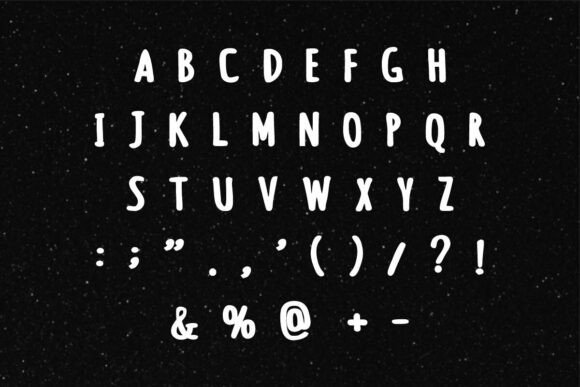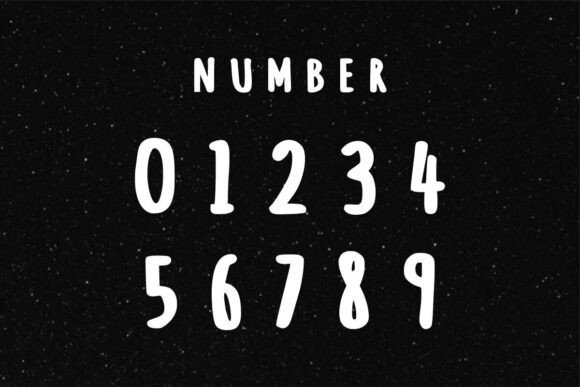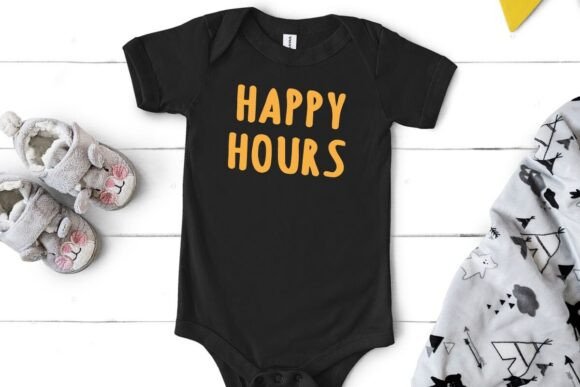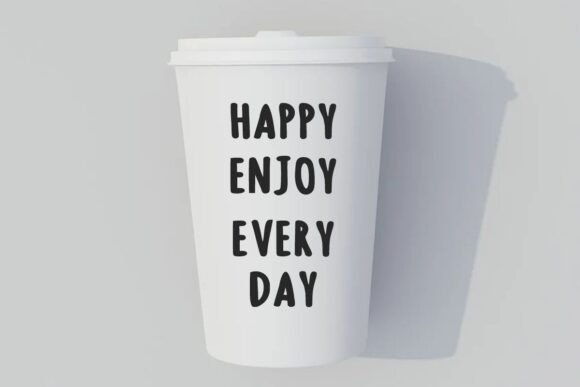
Forever Young Font: The Ultimate Choice for a Relaxed and Friendly Design
Are you looking for a font that can add a touch of informality and casualness to your designs? Look no further than the Forever Young Font. This cute and simple display font is perfect for designers and crafters who want to create relaxed and friendly designs that appeal to a wide audience.
What Makes Forever Young Font So Special?
Forever Young Font is a unique and versatile font that can be used for a variety of design projects. Its informal style and casual vibe make it an excellent choice for designs that require a laid-back touch. Whether you’re working on product packaging, invitations, quotes, t-shirts, labels, posters, or logos, this font is sure to become your go-to choice.
Key Features of Forever Young Font
- Cute and Simple Design: Forever Young Font features a cute and simple design that is easy to read and understand. Its clean lines and rounded edges make it a joy to use for a variety of design projects.
- Informal Style: The font’s informal style and casual vibe make it perfect for designs that require a relaxed touch. It’s ideal for creating designs that are friendly, approachable, and laid-back.
- Versatility: Forever Young Font is a versatile font that can be used for a wide range of design projects. Whether you’re working on a logo, poster, or packaging design, this font is sure to deliver.
Use Cases for Forever Young Font
Forever Young Font is a versatile font that can be used for a wide range of design projects. Here are some use cases where this font can shine:
- Product Packaging: Use Forever Young Font to create eye-catching product packaging that stands out on store shelves. Its informal style and casual vibe make it perfect for packaging designs that require a relaxed touch.
- Invitations: Create beautiful and unique invitations for parties, weddings, and other events using Forever Young Font. Its cute and simple design makes it perfect for creating invitations that are friendly and approachable.
- Quotes and Posters: Use Forever Young Font to create inspiring quotes and posters that are easy to read and understand. Its clean lines and rounded edges make it perfect for creating designs that are visually appealing.
- T-Shirts and Apparel: Create custom t-shirts and apparel using Forever Young Font. Its informal style and casual vibe make it perfect for creating designs that are relaxed and friendly.
- Logos and Branding: Use Forever Young Font to create unique and memorable logos and branding materials. Its versatility and ease of use make it perfect for creating designs that are professional and visually appealing.
Tips for Using Forever Young Font
Here are some tips for using Forever Young Font in your designs:
- Pair it with Other Fonts: Forever Young Font can be paired with other fonts to create a unique and visually appealing design. Try pairing it with a serif font for a contrasting look.
- Experiment with Colors: Forever Young Font looks great in a variety of colors. Experiment with different colors to find the one that works best for your design.
- Use it for Headings: Forever Young Font is perfect for use in headings and titles. Its informal style and casual vibe make it perfect for creating designs that are attention-grabbing and visually appealing.
Forever Young Font is a versatile and easy-to-use font that is perfect for designers and crafters who want to create relaxed and friendly designs. Its informal style and casual vibe make it an excellent choice for a wide range of design projects, from product packaging to logos and branding materials. With its cute and simple design, Forever Young Font is sure to become your go-to choice for all your design needs.